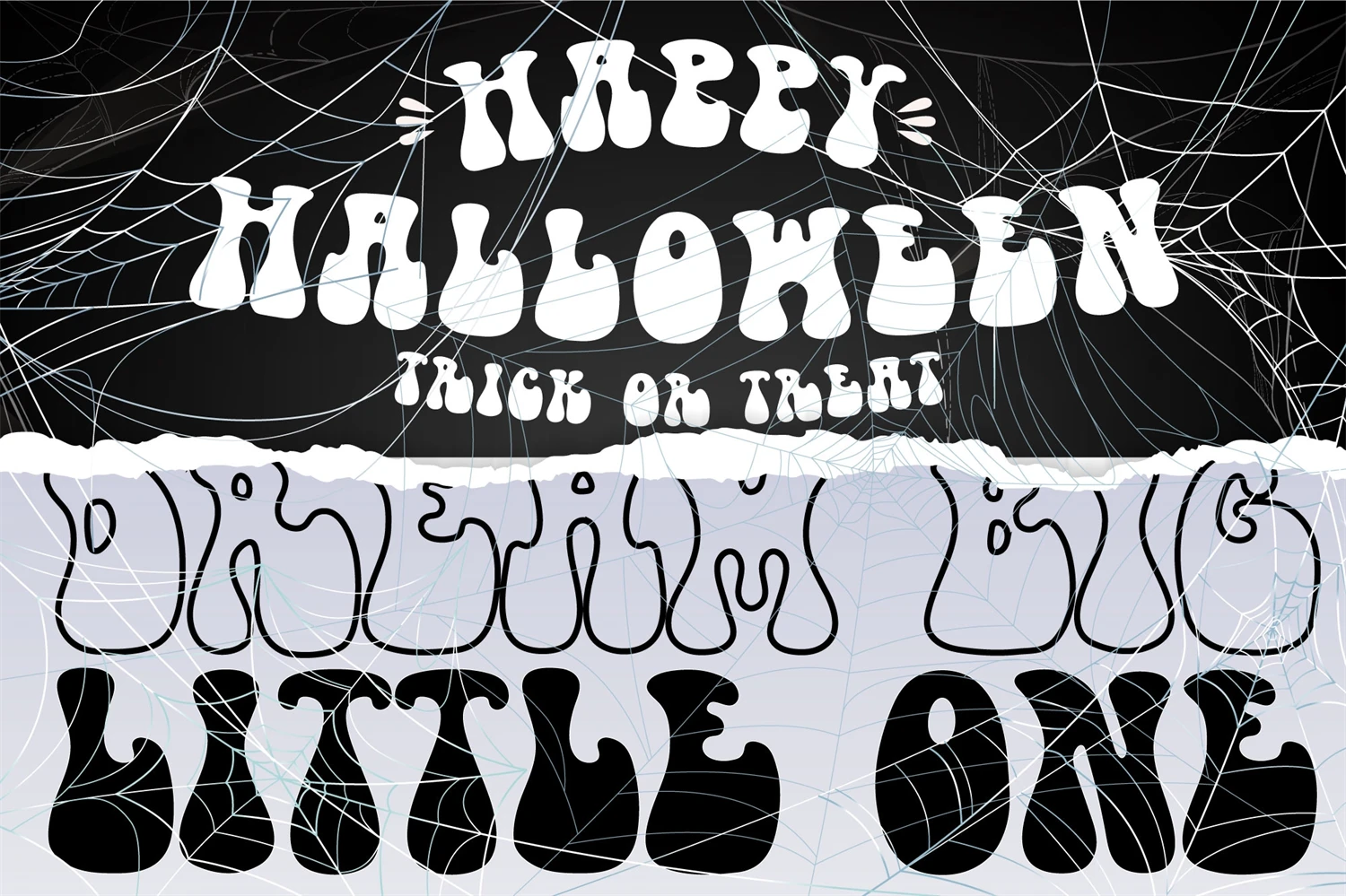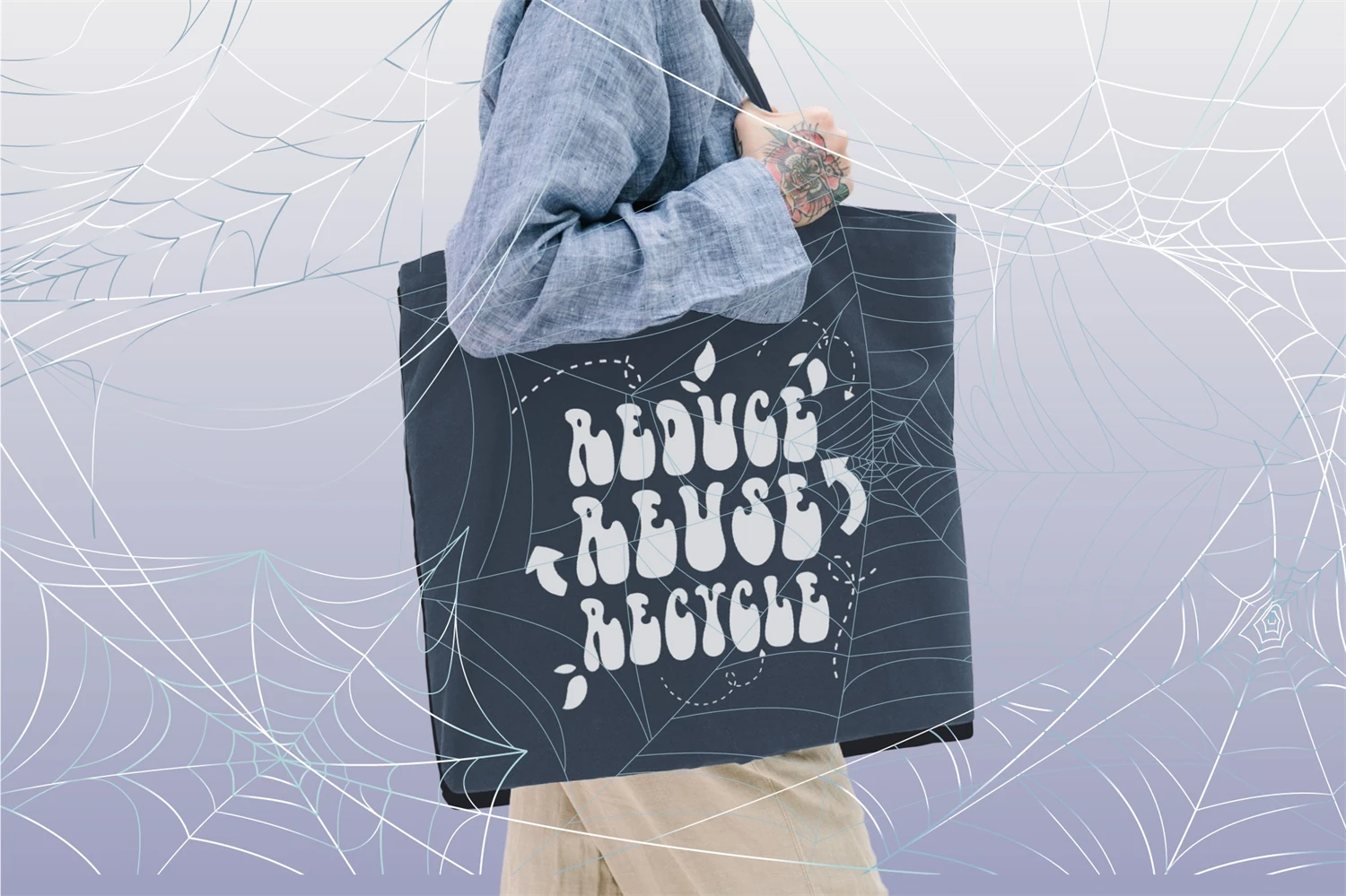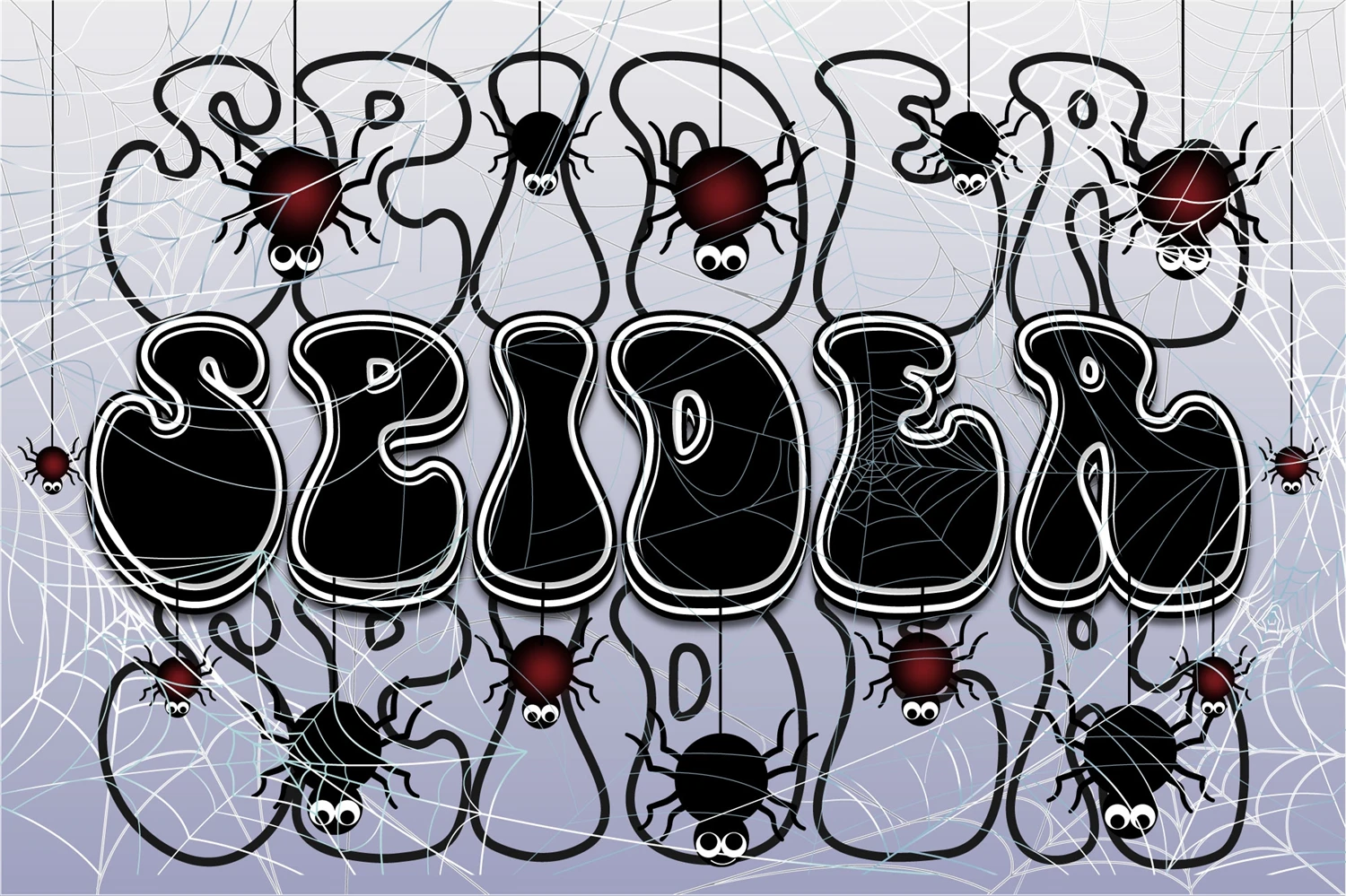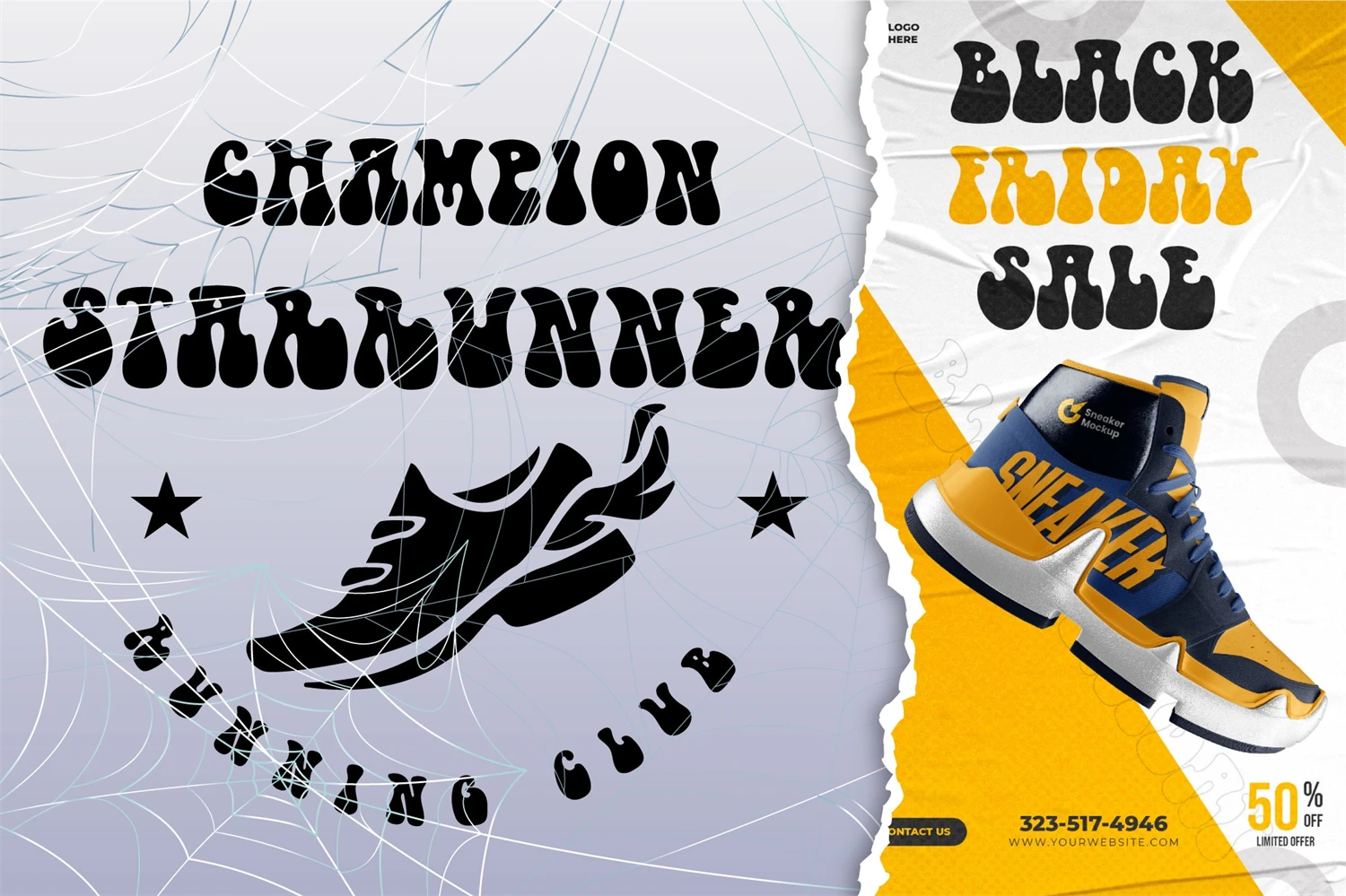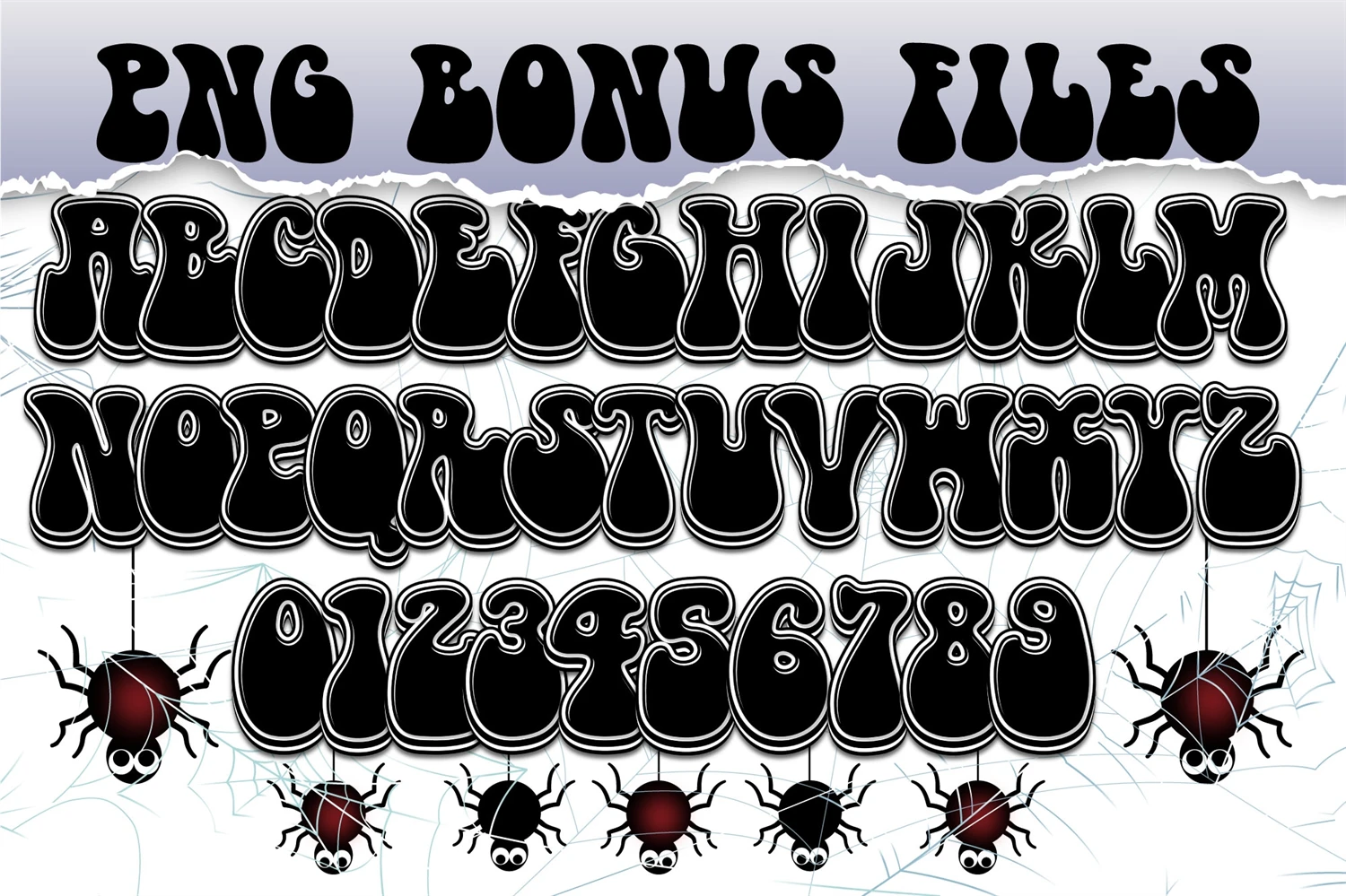
Spider Font is an exuberant display font that will infuse your designs with a joyful spirit! This unique typeface is perfect for adding a touch of cheerfulness to a variety of projects. Whether you're designing book covers, posters, Halloween-themed graphics, marketing materials, or anything that needs to grab attention, Spider Font will make your text come alive. With its captivating style and playful charm, it's sure to leave a lasting impression on your audience. Get ready to spin a web of creativity with Spider Font!